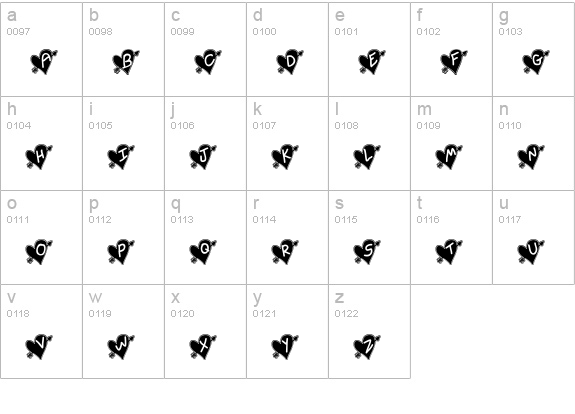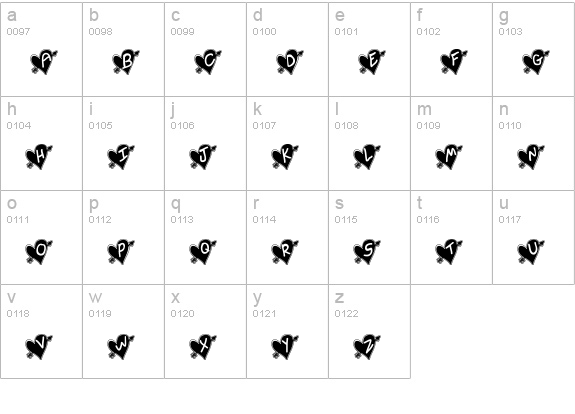
Written In My Heart College Updated Font Details
Introducing Written In My Heart College Updated font - a timeless typeface that exudes a sense of elegance and sophistication. This font is perfect for those who seek a classic yet modern look in their designs. The Written In My Heart College Updated font is effortlessly versatile, making it suitable for a wide range of projects. Whether you're designing a logo, creating a wedding invitation, or crafting a stylish poster, this font will add a touch of refinement to your work. What sets this font apart is its attention to detail. Every curve and stroke has been carefully crafted to ensure a seamless and visually pleasing appearance. The letters flow effortlessly, creating a harmonious composition that captivates the eye. But what truly sets the Written In My Heart College Updated font apart is that it is freely available to download at FontsMarket.com. Yes, you read that right - this unique font can be yours without any cost. It's a rare opportunity to enhance your designs with a premium font without breaking the bank. Don't miss out on the chance to elevate your designs with the Written In My Heart College Updated font. Download it now at FontsMarket.com and experience the beauty and versatility this font has to offer.